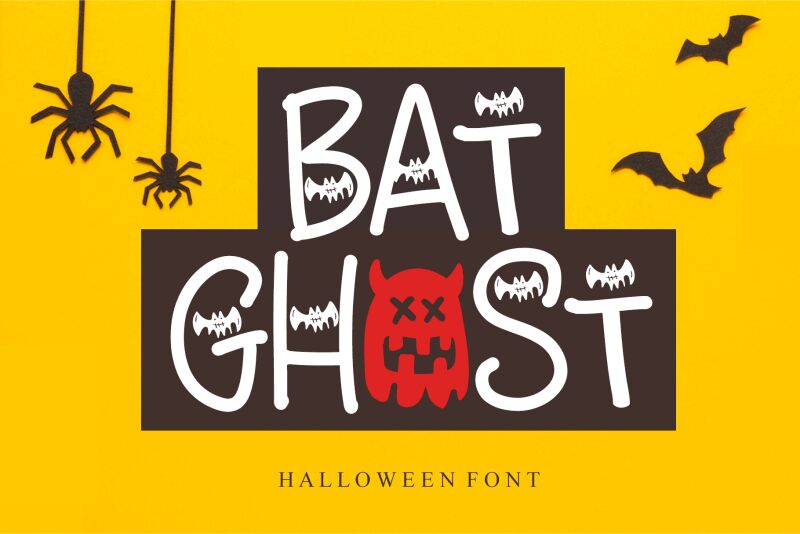
Bat Ghost, a haunting creation by Letterafa Studio, is the perfect font to add an eerie touch to your holiday projects.
With its semi-light weight and Halloween-inspired style, this font will bring spooky vibes to any design. Use it for party invitations, flyers, or social media graphics to create a chilling atmosphere. Its unique character shapes and playful curves make it ideal for capturing the spirit of Halloween in a creative and engaging way.
Let Bat Ghost be your go-to choice for all things frightful and fun!